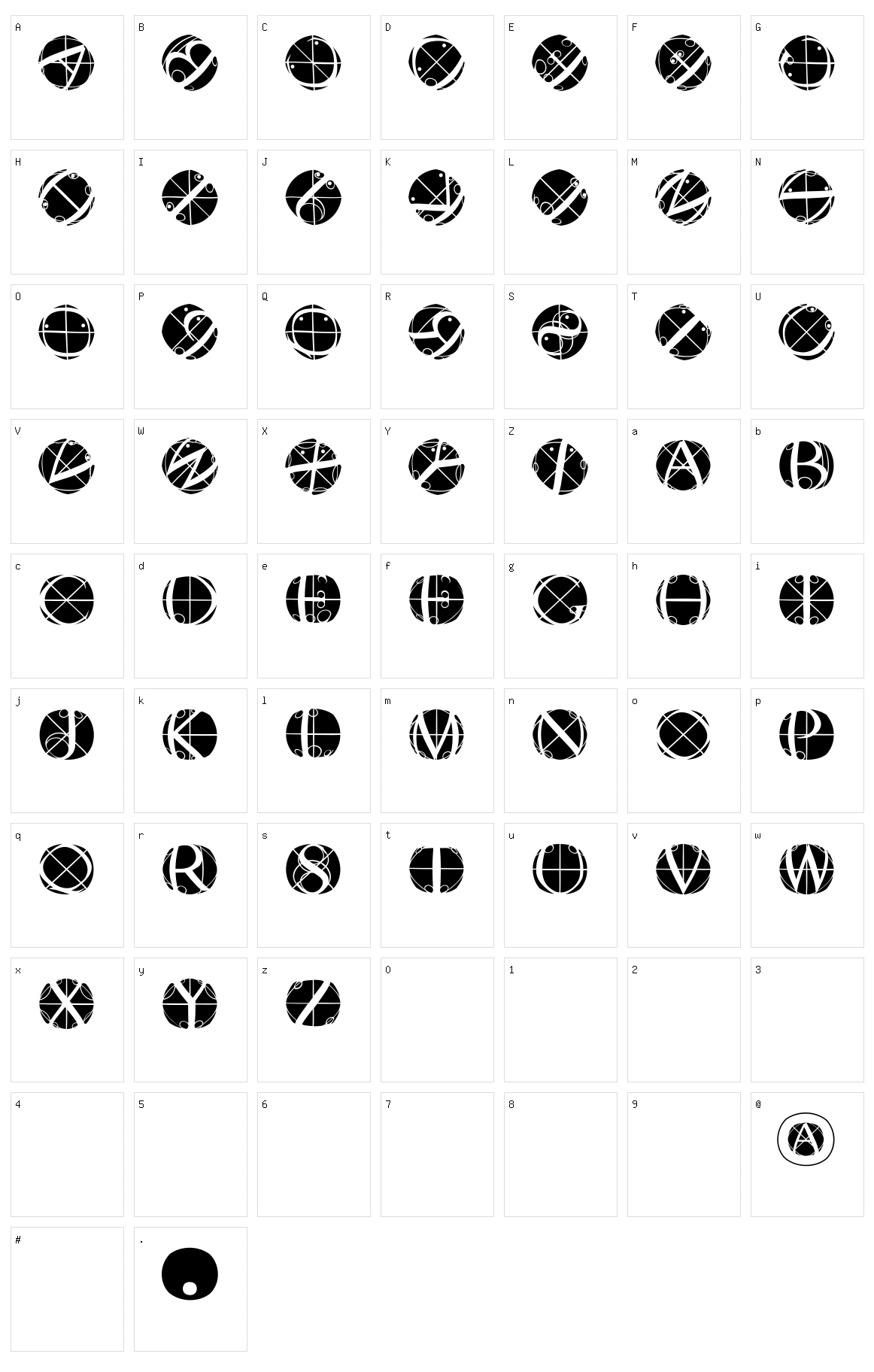
The free font Rodau Buttons is carefully designed by Manfred Klein, showcasing a thoughtful balance of creativity and usability and falls under the Grid font style. When you download the ZIP file, it contains only 68.11 KB of font files, making it lightweight and quick to download. Please review the license details below to understand permitted usage and distribution rights. If license information is not available, we recommend using this font for personal projects only or contacting the author directly for commercial usage permissions.